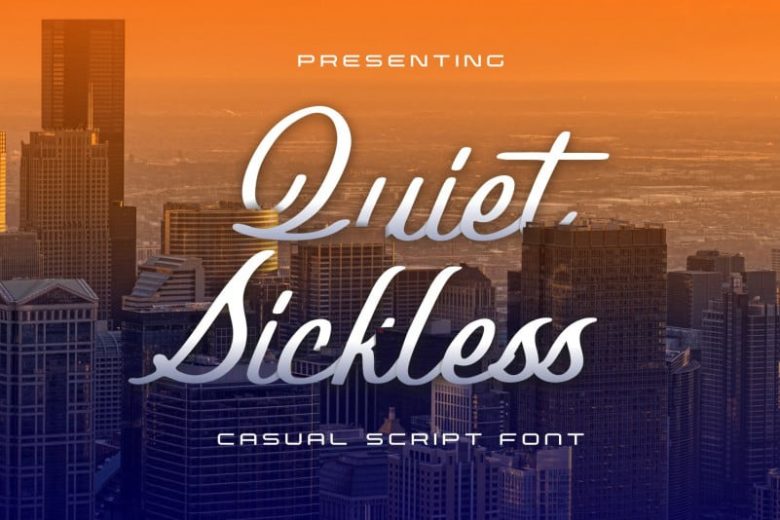
Quiet Sickless Font
Quiet Sickless Script Font
Quiet Sickless Script Font is a stylish and delicate font. It has a clean, thin and smooth vibe and it will be a hit for any design that you want to add it to.